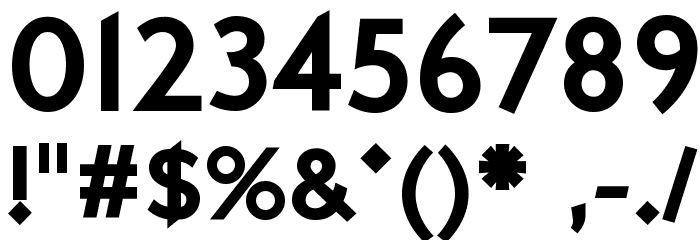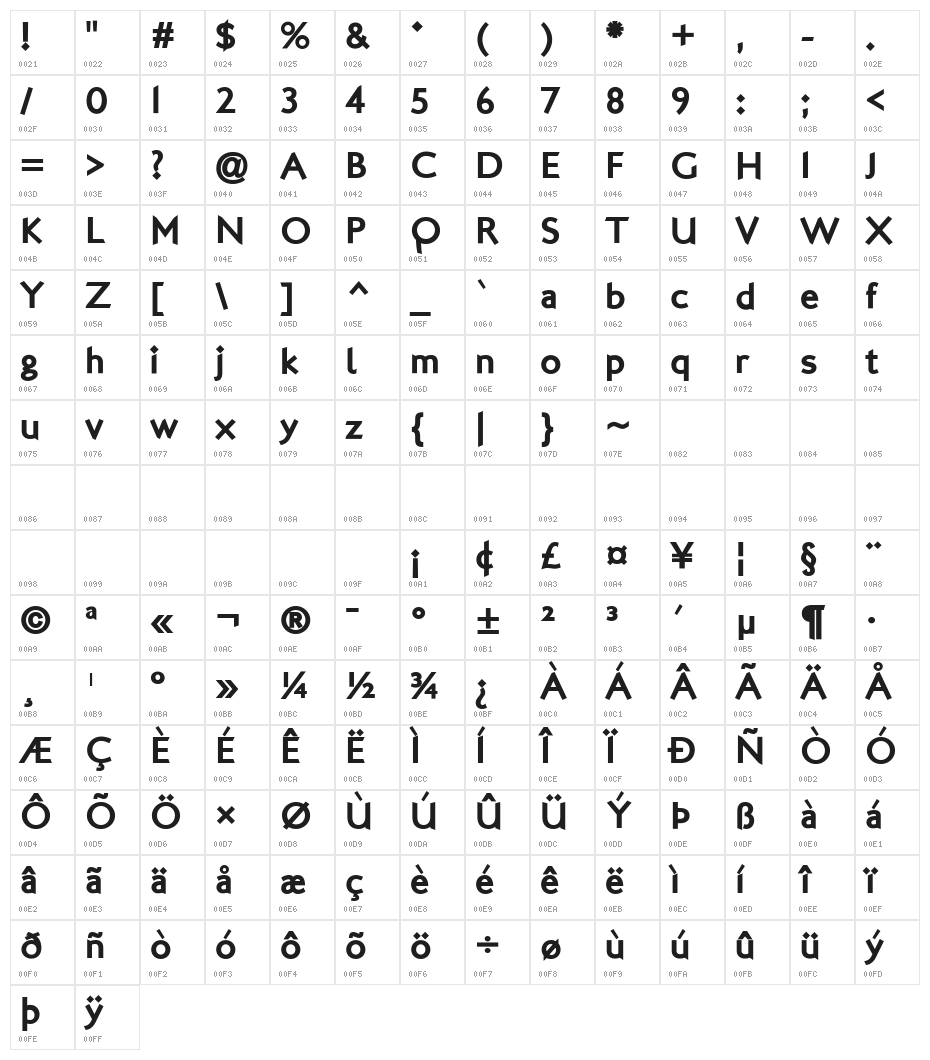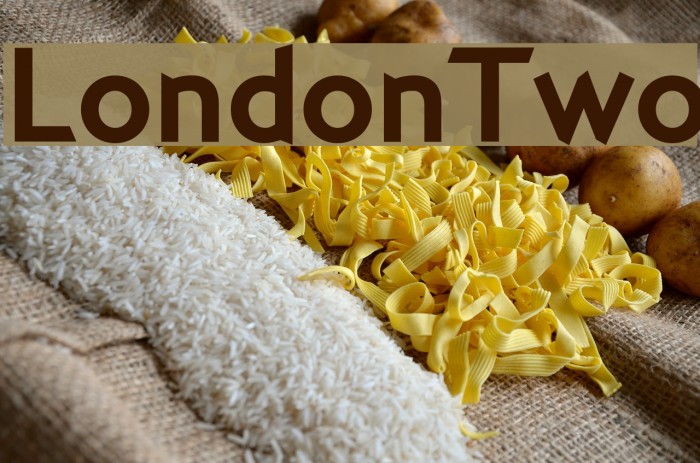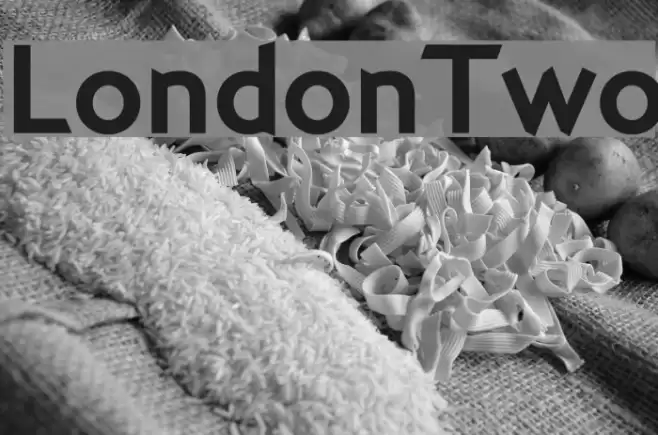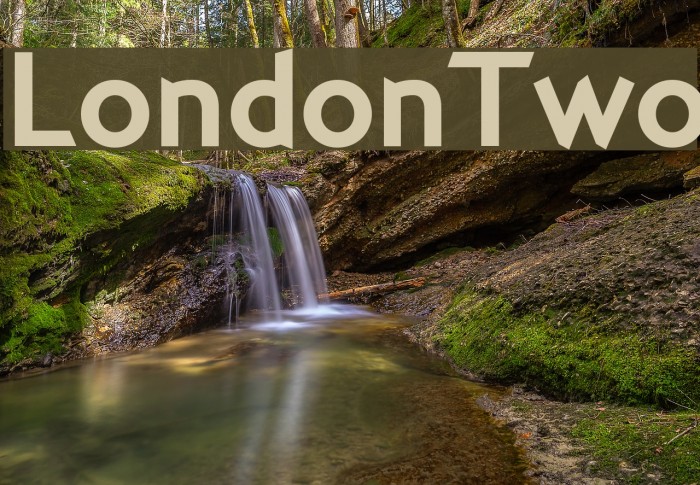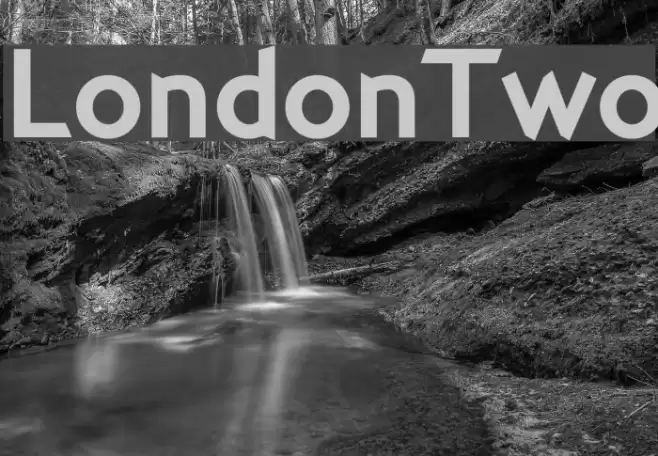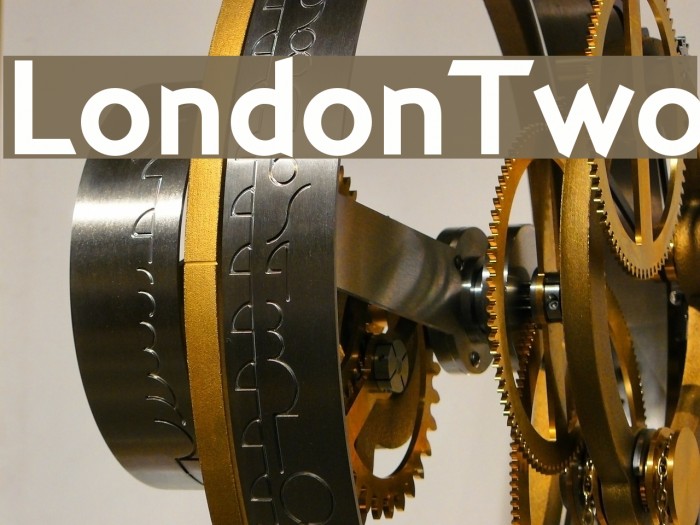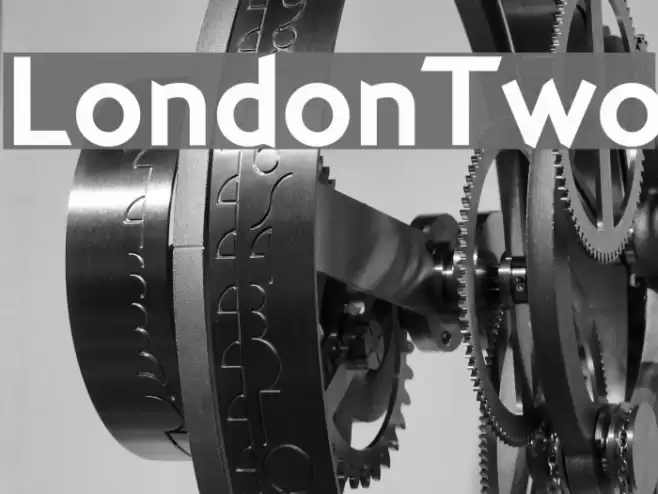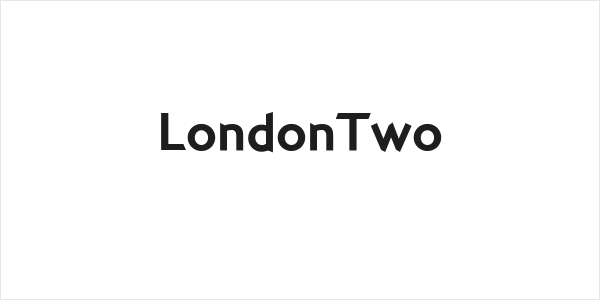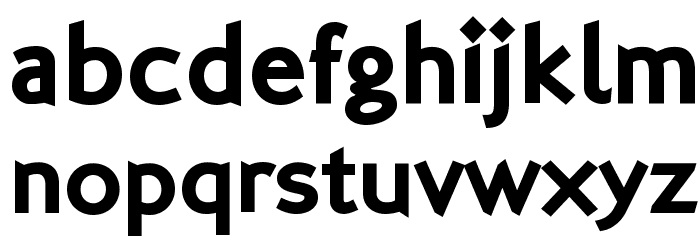
LondonTwo Font
LondonTwo Description
This typeface features a bold and geometric design with clean, sharp lines and a modern aesthetic. The uppercase letters are uniform in height, with a slight variation in width, creating a balanced and harmonious look. The lowercase letters maintain a consistent style, with rounded edges that add a touch of softness to the overall appearance. The numerals are clear and easy to read, making them suitable for various applications. The special characters are well-integrated, complementing the overall design. This font is versatile, offering a contemporary feel that can be adapted to a wide range of projects.